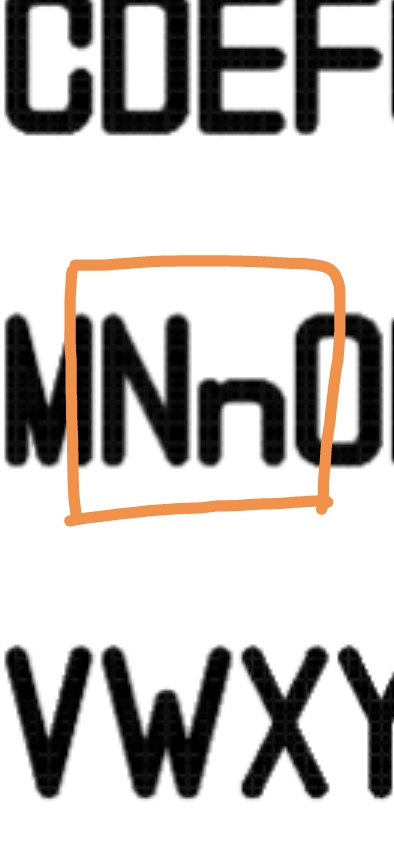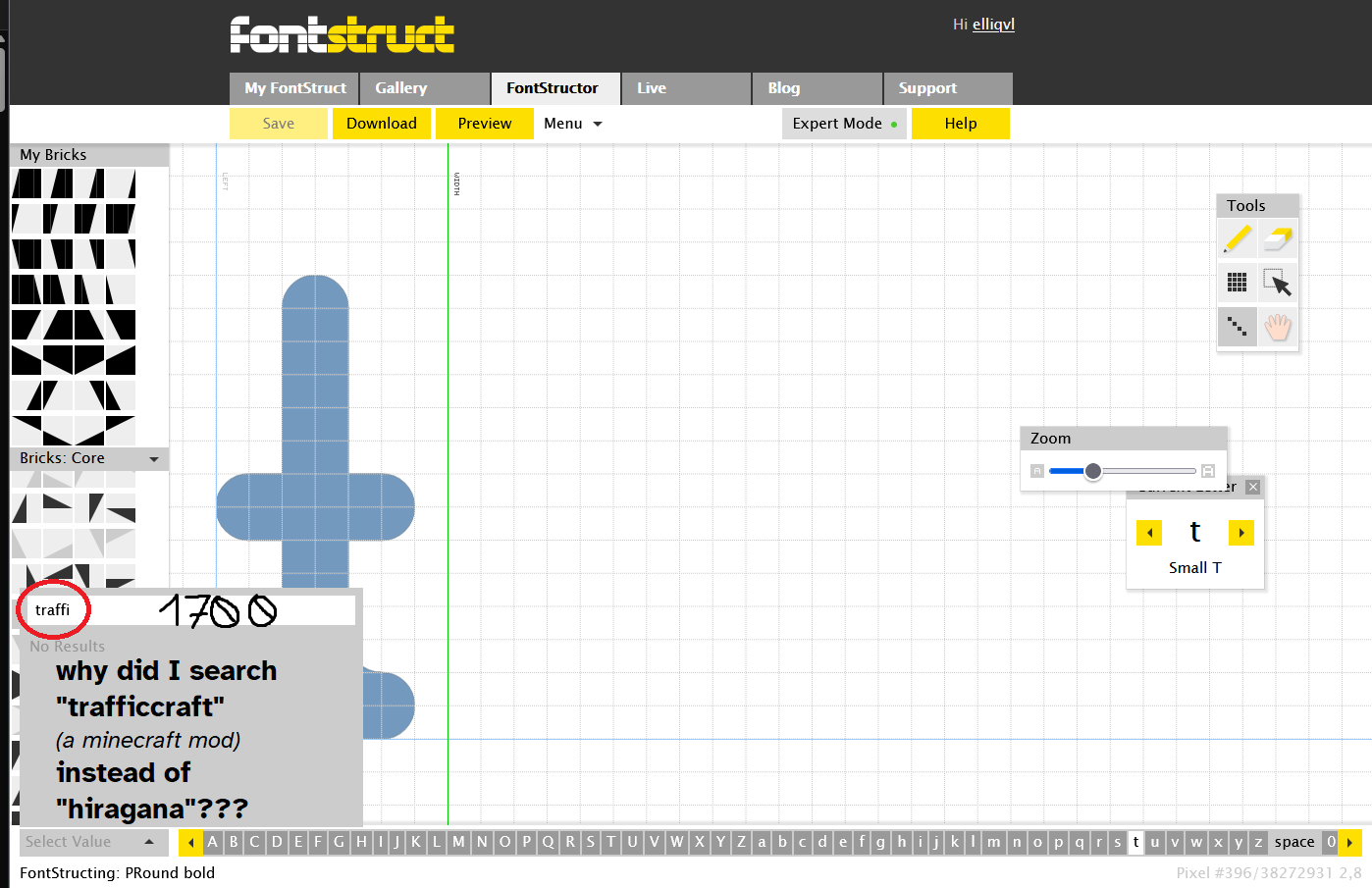
doing valerian argam : )
at cjk unified ideographs
made it proportional
i keep getting ipa & pua confused 😵💫
IPA is the International Phonetic Alphabet. PUA is the Private Use Area.
yes i know ....
yay 1400 glyphs
edit: finished latin extended-b today lol
why is there a lowercase n
oops 😅
whoops forgot to crop this
finished hiragana
and no, i will not do kanji.